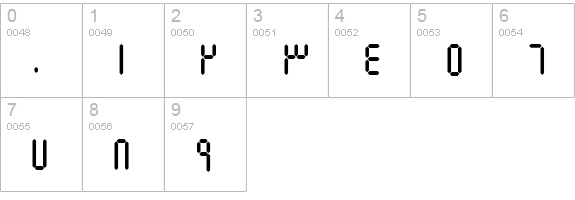
B Elm Font Details
B Elm is a stylish and versatile font that exudes elegance and sophistication. Its sleek lines and modern design make it perfect for a wide range of creative projects, from branding to editorial design. The font's clean and minimalist aesthetic adds a touch of class to any piece of work, making it a must-have for designers looking to elevate their projects. What's even better is that B Elm is available for free download at FontsMarket.com. This means that you can easily access this stunning font without any cost, making it a valuable addition to your font library. Don't miss out on the opportunity to enhance your designs with the timeless beauty of B Elm font. Download it now and let your creativity shine!